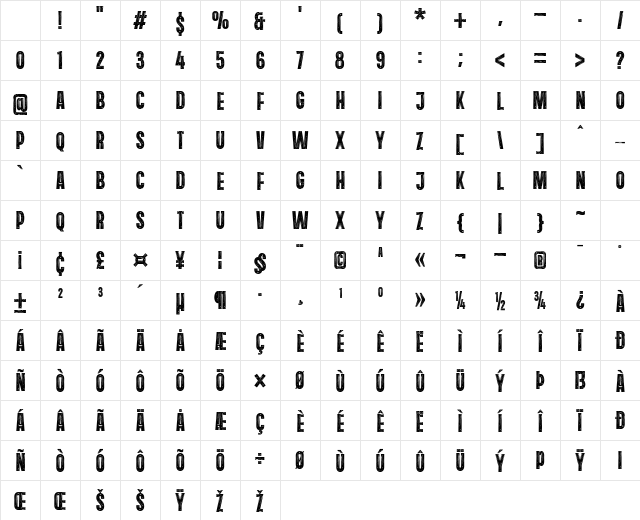
Complete Domestic Prison Regular glyph index. Displaying only characters natively supported by Domestic Prison Regular font.
Domestic Prison is a composed and adaptable typeface that performs quietly and consistently across a wide range of design contexts.
Who designed the Domestic Prison Regular font?